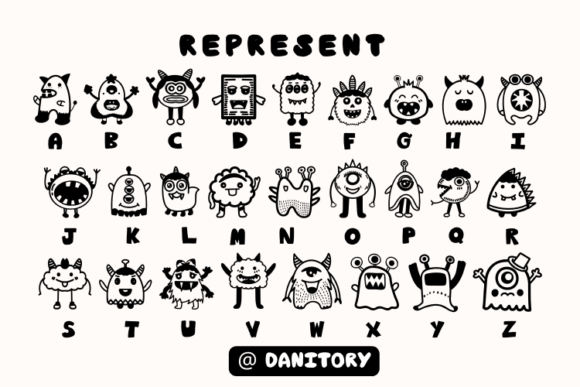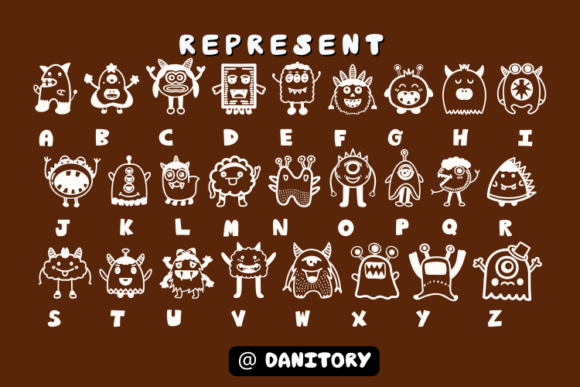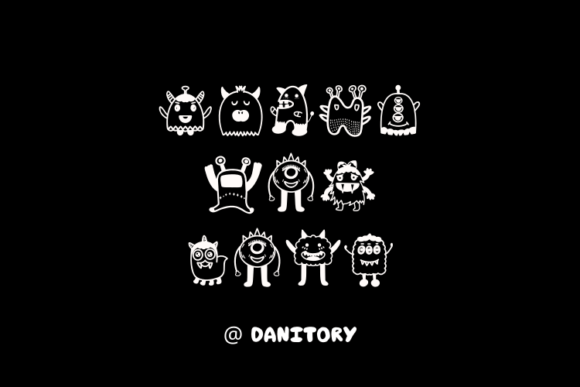
The Perfect Font for Little Monsters: Unleashing the Power of Cute Monster Font
Do you ever find yourself browsing through font collections, searching for the perfect addition to a design that’s sure to capture the hearts of kids everywhere? I know I do. As a designer, there’s something special about creating projects that bring a smile to a child’s face, and I’ve found just the thing to make that happen – the lovable Cute Monster Font.
This fun and adorable dingbats font is bursting with personality, featuring a delightful array of little monster faces that are just begging to be used. Whether you’re working on children’s designs, quirky posters, or funny stickers, Cute Monster Font is the perfect addition to give your projects a youthful and playful touch. With its versatility and charm, it’s no wonder this font has become a valuable asset for designers looking to add a little extra magic to their work.
Cute Monster Font Key Features
- Font Style: Whimsical, playful, and adorable, with rounded edges and friendly curves.
- Character Set: Includes a comprehensive set of characters, including uppercase and lowercase letters, numbers, and punctuation marks.
- Unique Characteristics: Features a range of cute monster-themed icons and symbols, adding a fun and playful touch to designs.
Cute Monster Font Review
I have to say, I was initially drawn to the Cute Monster Font because of its playful and whimsical design. ✨ The font is perfect for projects that require a touch of fun and innocence. The rounded edges and adorable character shapes give it a unique and eye-catching quality that’s hard to resist.
One of the things I like most about this font is its versatility. ✨ It can be used for a variety of projects, from children’s books and educational materials to advertisements and promotional materials. The font is also highly customizable, allowing you to adjust the size, color, and style to suit your needs.
While the Cute Monster Font is a great choice for many projects, there are some limitations to consider. ⚠️ For one, the font may not be suitable for projects that require a more professional or formal tone. Additionally, the font’s rounded edges and playful design may not be effective for projects that require a more serious or complex message.
In conclusion, I think the Cute Monster Font is a great choice for projects that require a playful and whimsical touch. While it may not be suitable for all projects, it’s a great option for those who want to add a little fun and personality to their design.
- Font size: Be mindful of font size when using the Cute Monster Font, as it can become overwhelming at larger sizes.
- Color scheme: Choose a color scheme that complements the font’s playful design, such as pastel colors or bright primary colors.
- Project tone: Consider the tone of your project and whether the Cute Monster Font is suitable for your message.
For the best results, use Cute Monster Font in conjunction with playful and colorful designs. Experiment with different font sizes, colors, and styles to create a unique look.
Cute Monster Font is ideal for:
- Food and beverage branding (e.g. ice cream shops, bakeries)
- Fun and quirky social media posts